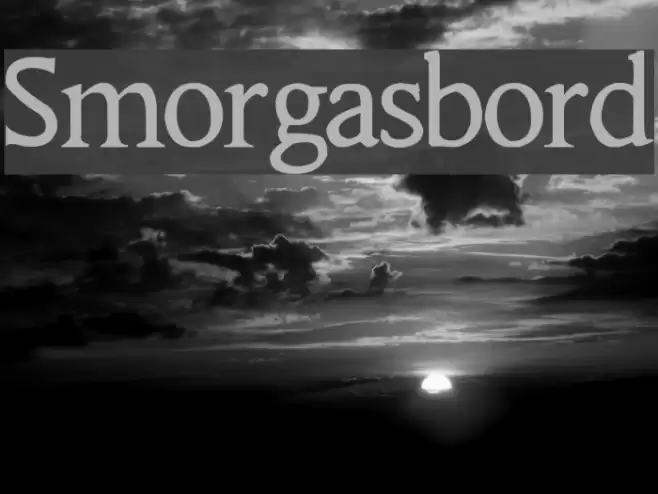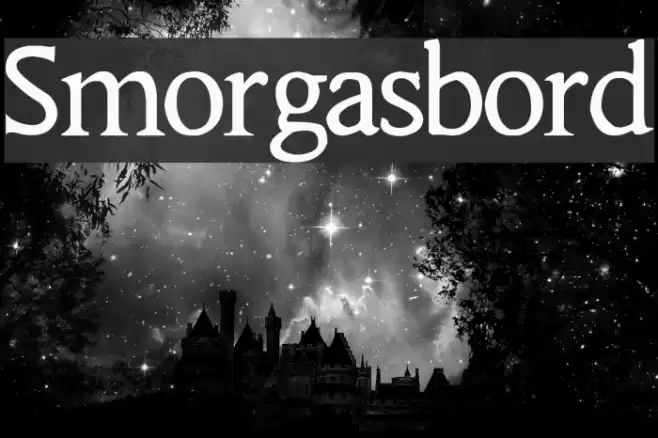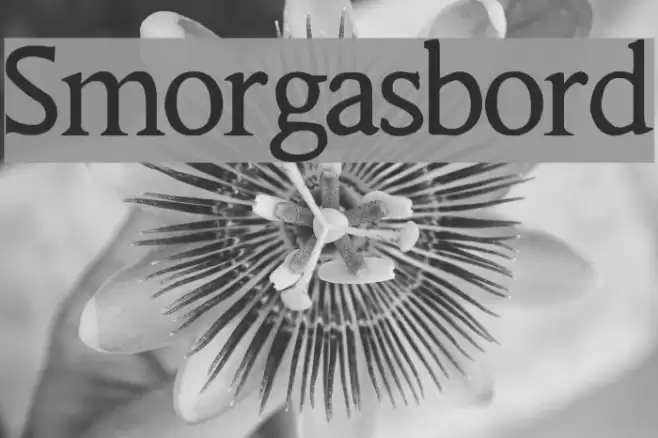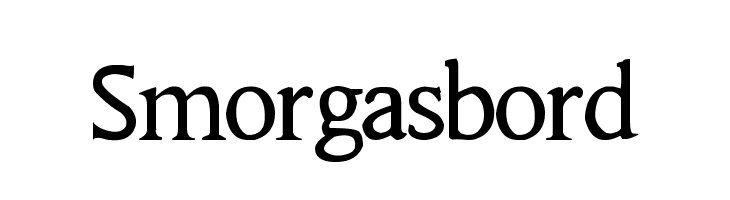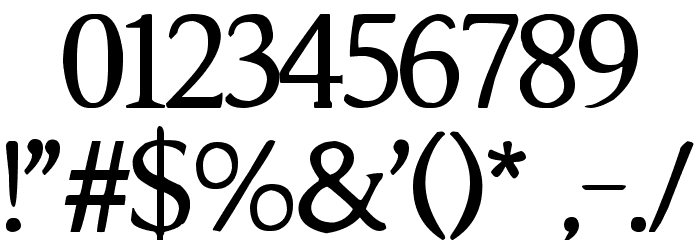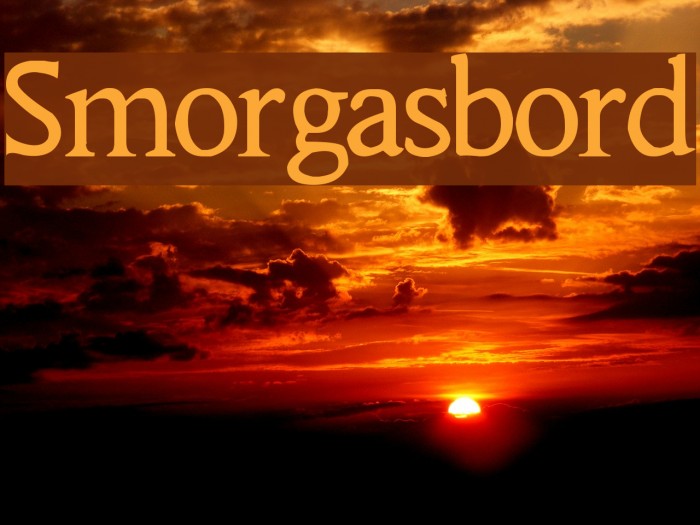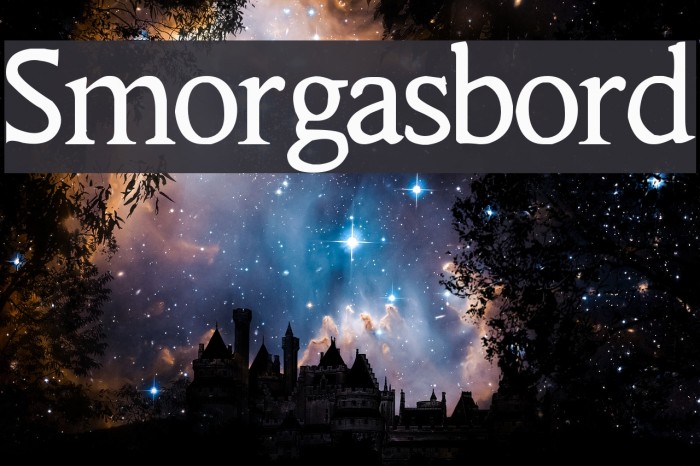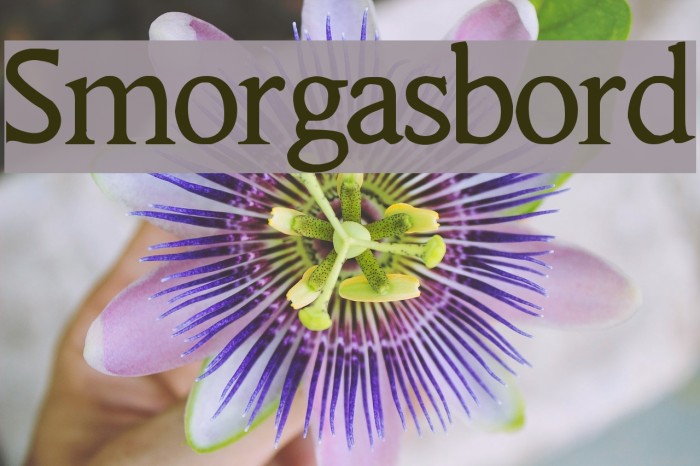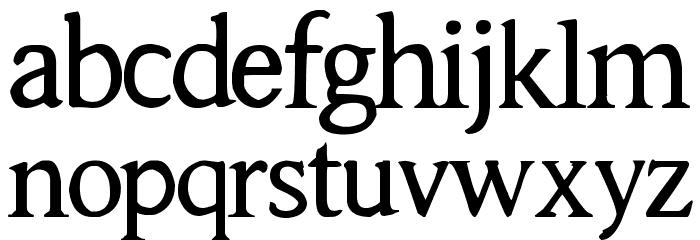
Smorgasbord Font
Smorgasbord Description
This font exhibits a classic serif style with a touch of modern elegance. The characters are well-defined with a medium contrast between thick and thin strokes, giving it a sophisticated appearance. The serifs are pronounced yet not overly ornate, providing a balanced and readable text. The uppercase letters are bold and commanding, while the lowercase letters maintain a graceful flow. Numbers are clear and distinct, making them suitable for various applications. Special characters are designed with the same attention to detail, ensuring consistency across all glyphs.
A classic serif font with medium contrast and elegant serifs from Uncategorized fonts.
- Proposed Projects: Ideal for book covers, editorial design, formal invitations, and branding projects that require a touch of elegance.
- Overall Style: Classic